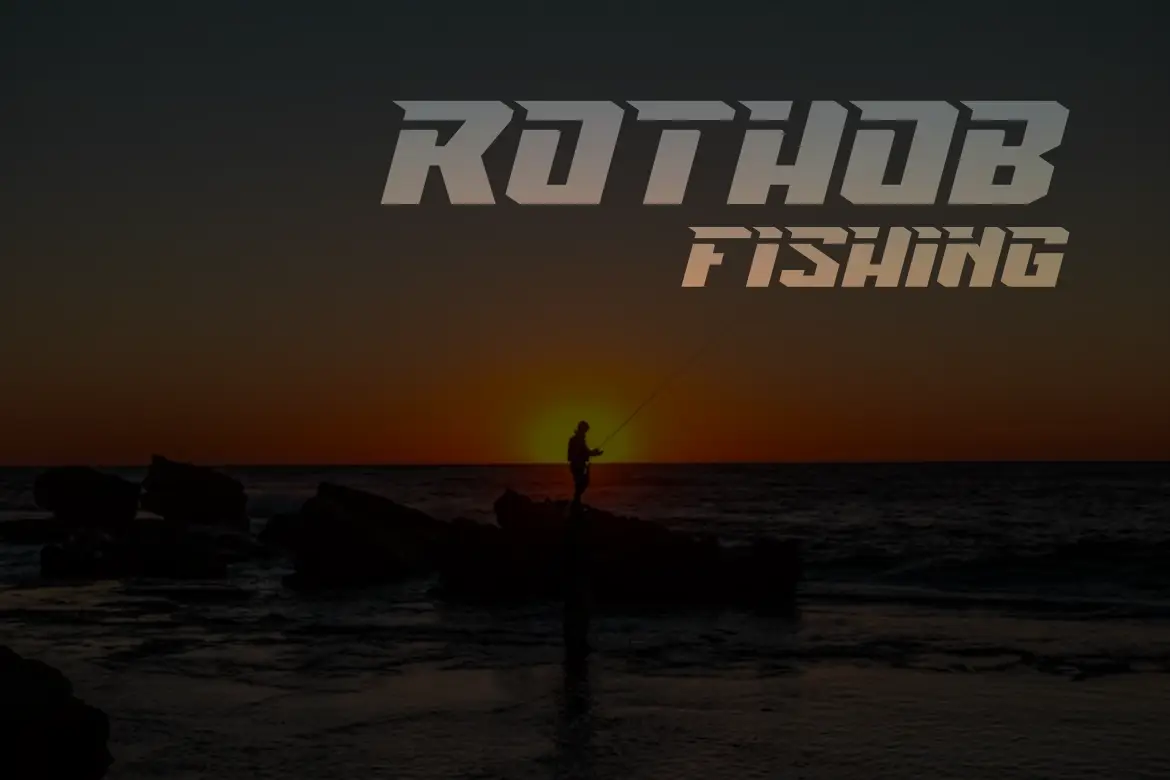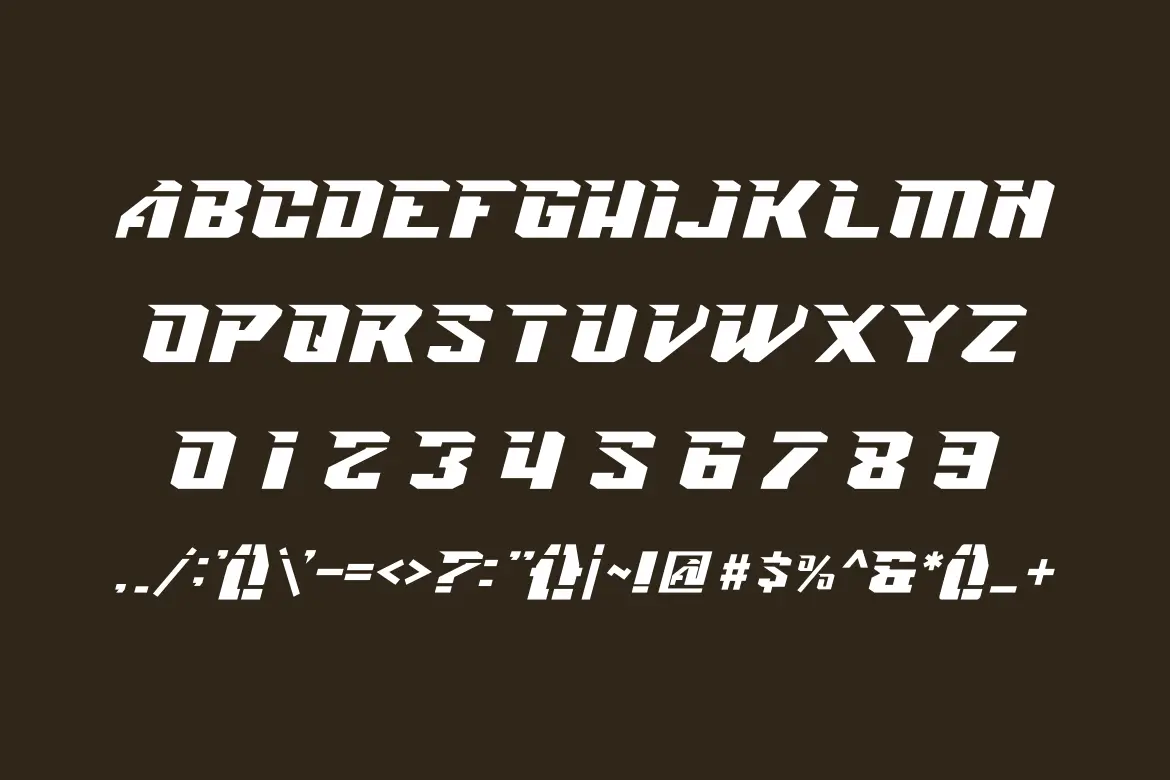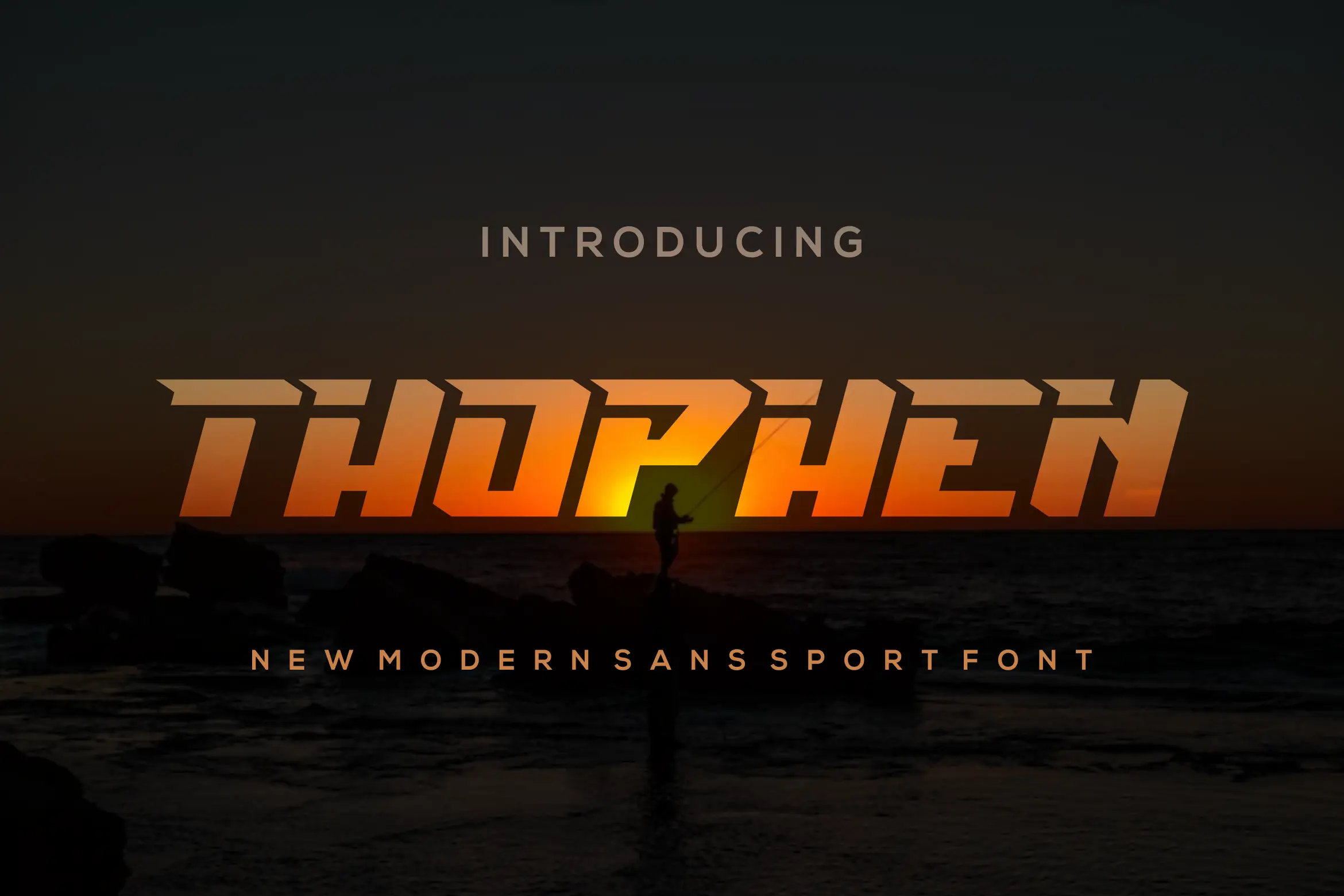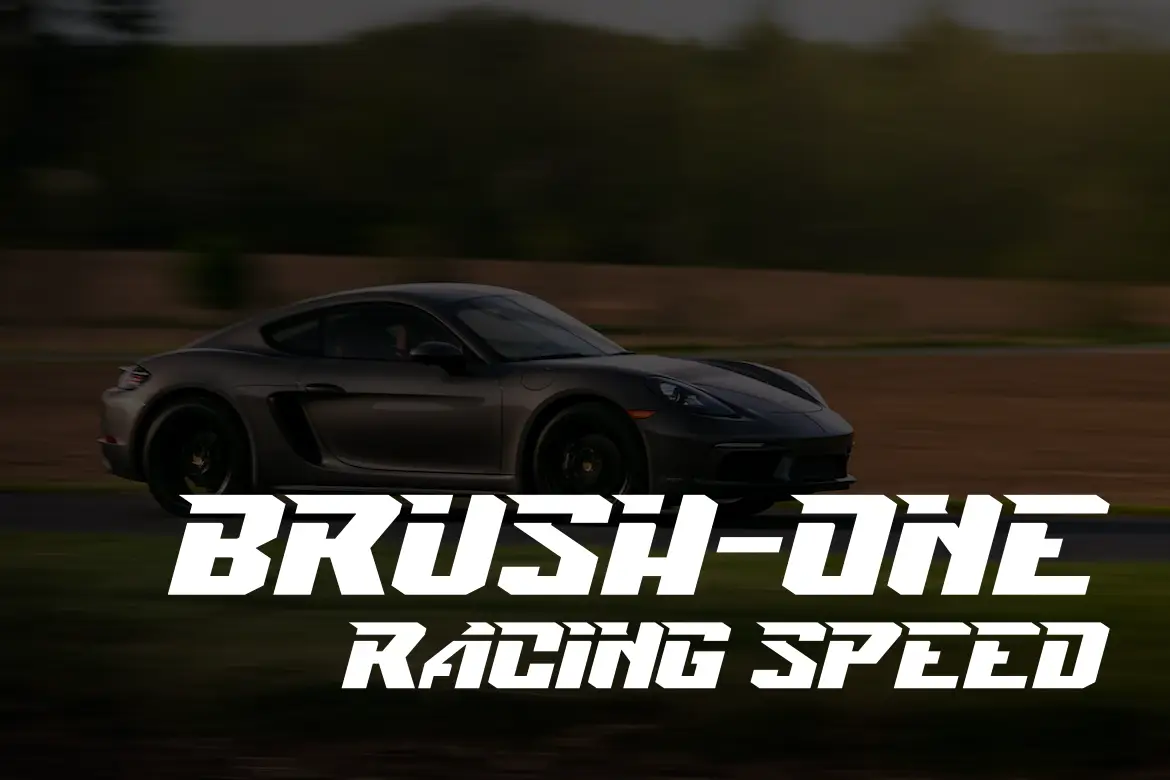
Thophen – A Futuristic Typeface Elyla3T
Introducing Thophen, a futuristic typeface designed for modern branding and digital applications. This unique font features a sleek and geometric design that captures attention and conveys innovation.
• Multiple weights for versatile use
• Numerals and symbols included
This typeface is perfect for branding projects, logos, web design, and user interfaces. Its modern aesthetic makes it an excellent choice for tech companies, startups, and any project that aims to portray a forward-thinking image.